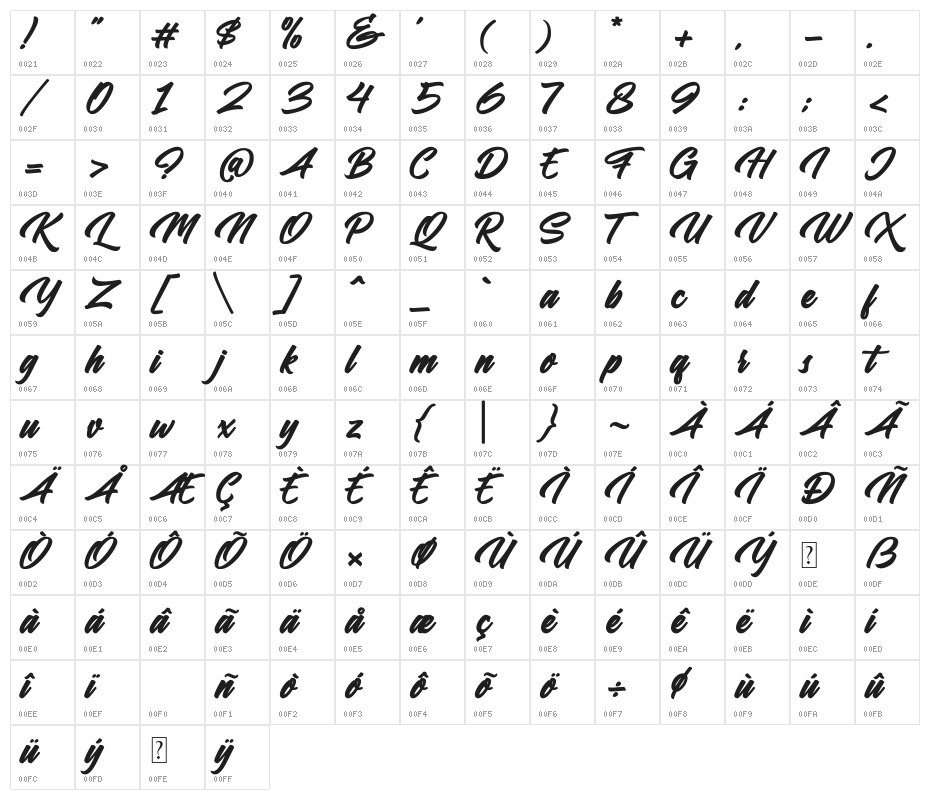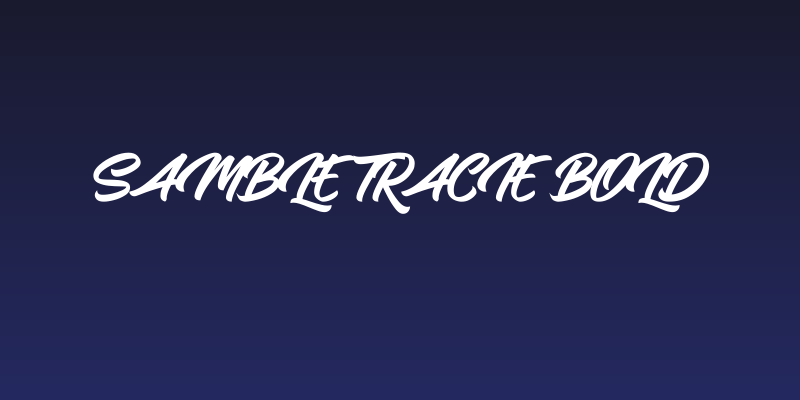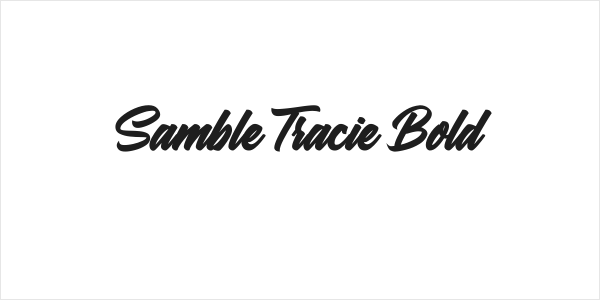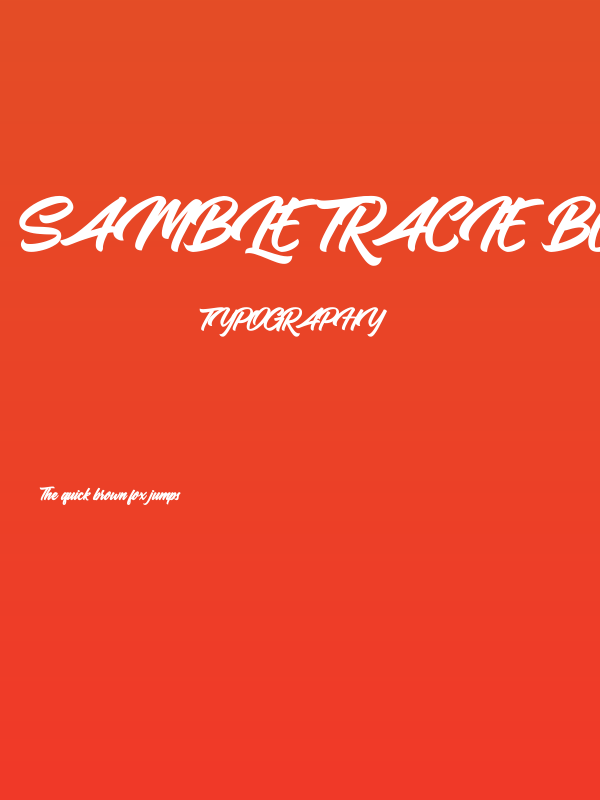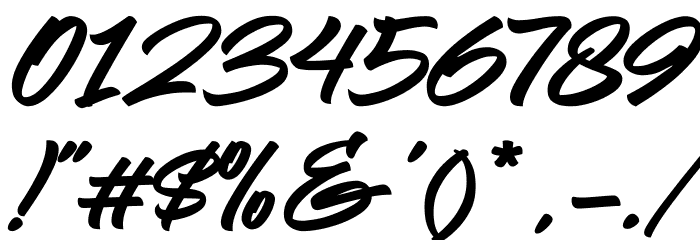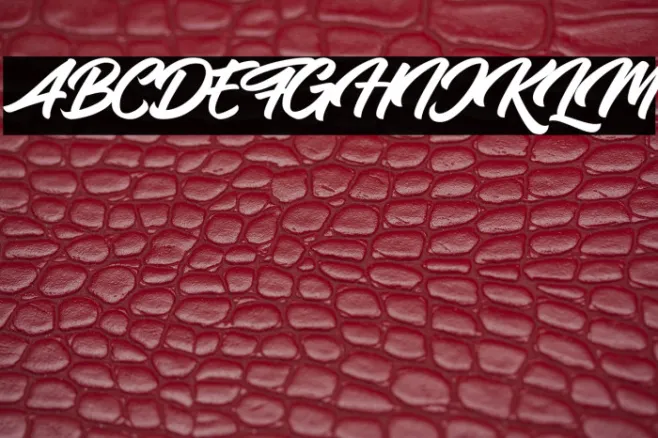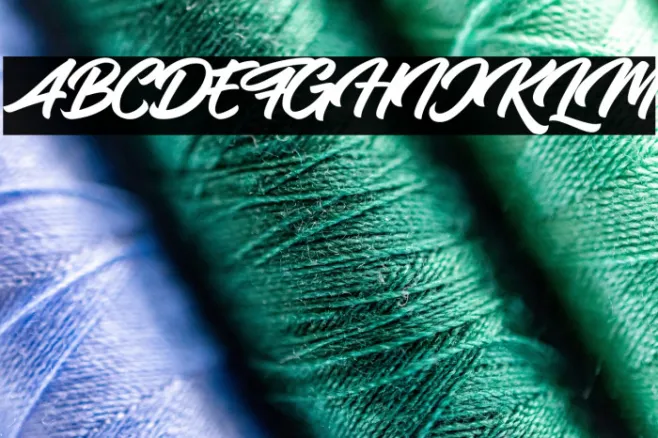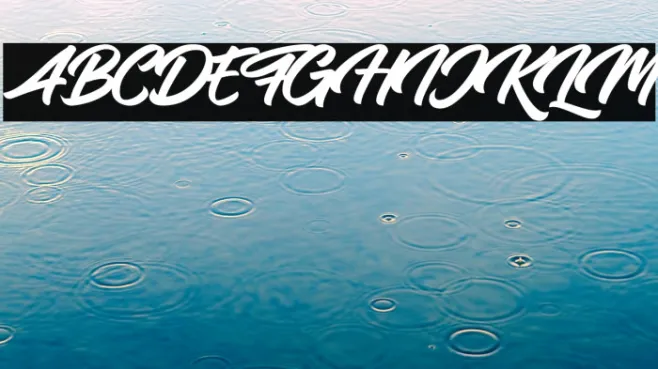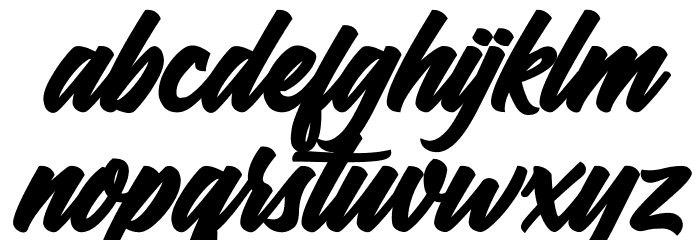
Samble Tracie Bold Font
Samble Tracie Bold Description
This font exhibits a bold and dynamic script style, characterized by its fluid, cursive strokes and a sense of movement. The letters are interconnected, creating a seamless flow that enhances its handwritten appearance. The bold weight of the font adds a strong visual impact, making it suitable for attention-grabbing designs. The uppercase and lowercase letters maintain a consistent style, with rounded edges and smooth curves. The numerals and special characters are crafted with the same attention to detail, ensuring uniformity across all elements. This font's energetic and expressive nature makes it ideal for creative projects that require a personal touch.
| Proposed Projects | Ideal for branding, invitations, greeting cards, and creative design projects that require a personal, handwritten touch. |